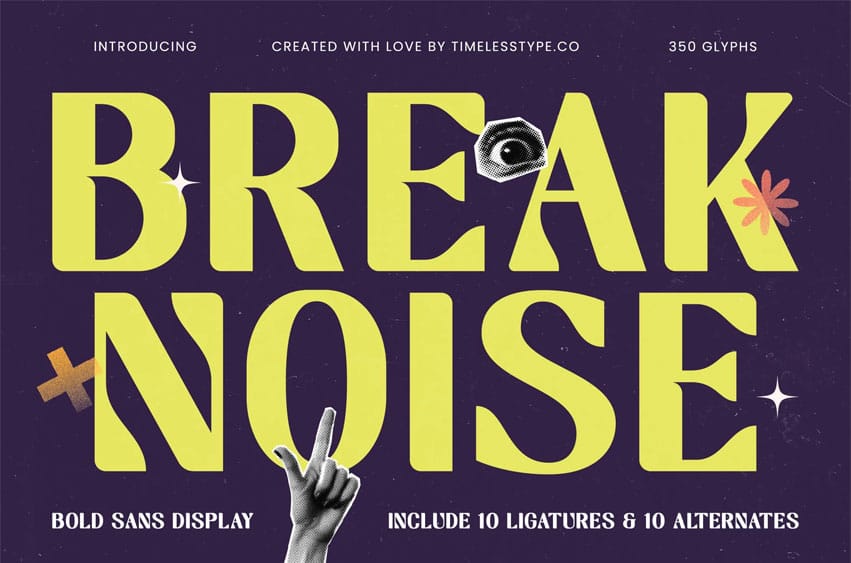
Break Noise Font is a bold sans display font built for impact, attitude, and loud visual energy. With chunky letterforms, sharp edges, and a dynamic rhythm, this typeface commands attention in posters, album covers, streetwear branding, event promotions, editorial layouts, and bold digital graphics.
Featuring 10 ligatures and 10 alternates, Break Noise gives you additional stylistic variations for crafting expressive headlines, standout logotypes, and unique typography compositions. The strong proportions and tight spacing create a powerful presence, ideal for modern graphic design and high-contrast aesthetics.
Whether you’re designing music artwork, experimental layouts, sports graphics, social media visuals, or rebellious branding, Break Noise delivers a striking, urban-forward personality that cuts through the noise.